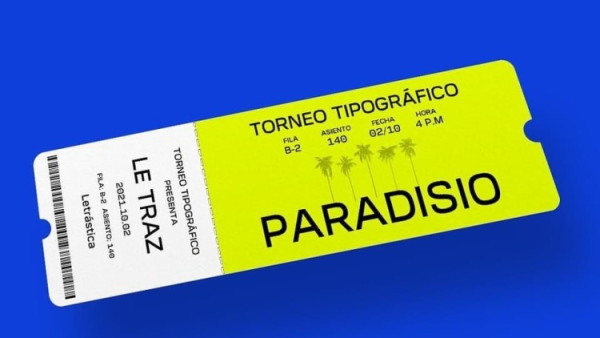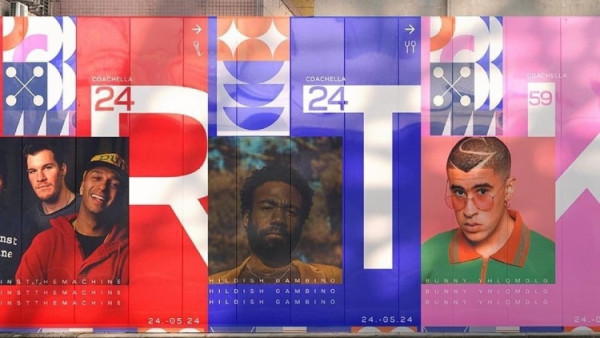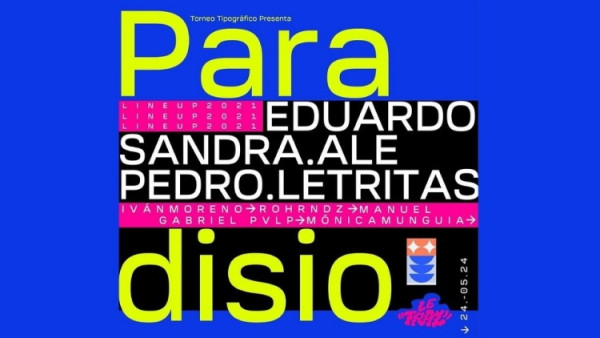
Paradisio Font
Paradisio Font is a sans serif typeface developed to guide people in any inclusive space. Due to its lines and construction, it improves the understanding and experience of space, evokes union and plurality due to its contemporary forms and features.